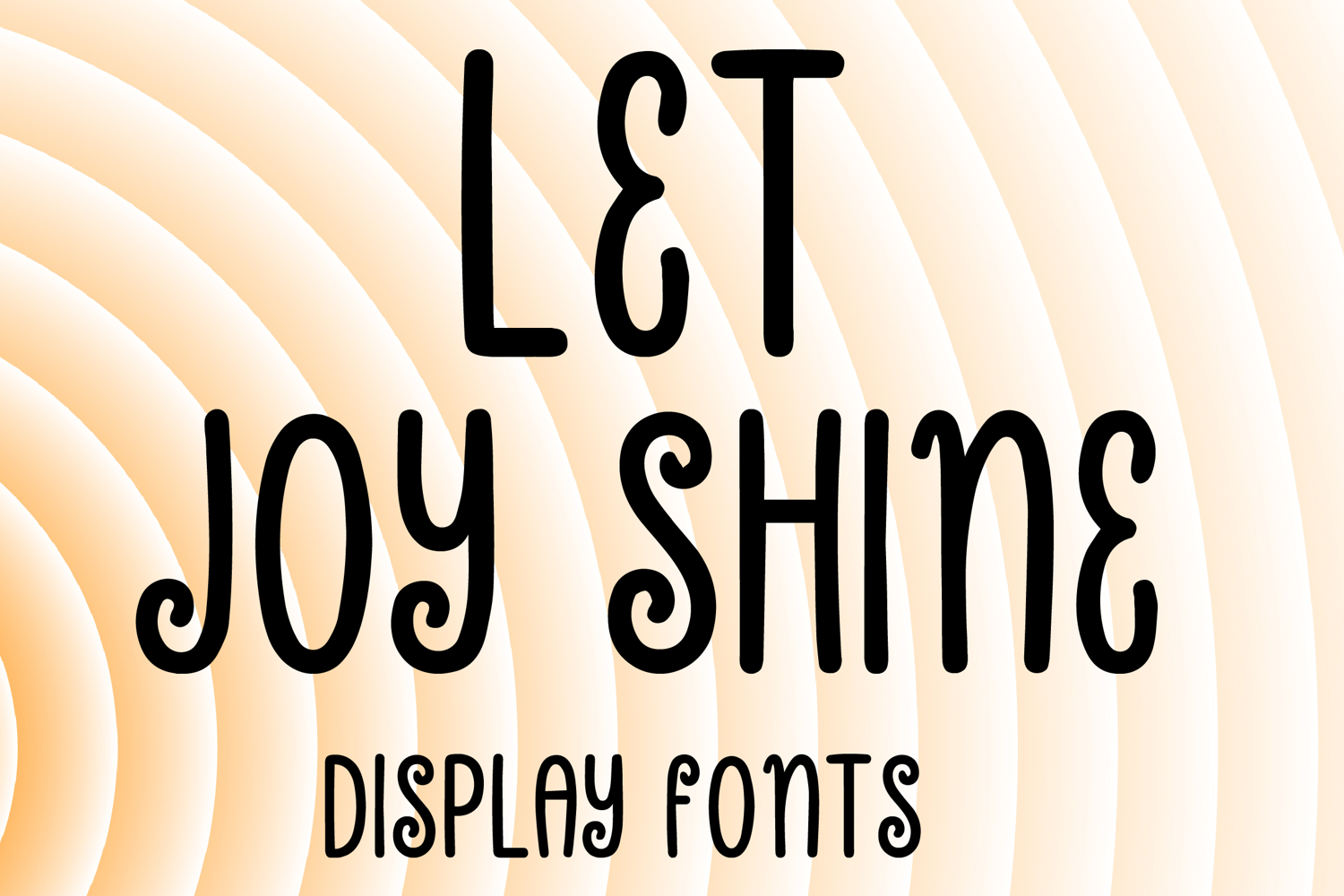
LET JOY SHINE
LET JOY SHINE is a whimsical decorative display font with a tall hand-drawn style and cheerful artistic charm. Its uppercase letterforms feature slim elongated strokes, playful spiral curls, and soft rounded curves that create a warm, joyful, and eye-catching look. Designed with uppercase letters A–Z and numbers 0–9, LET JOY SHINE is perfect for branding, posters, packaging, invitations, quotes, social media graphics, and creative projects that need a lighthearted and memorable statement.